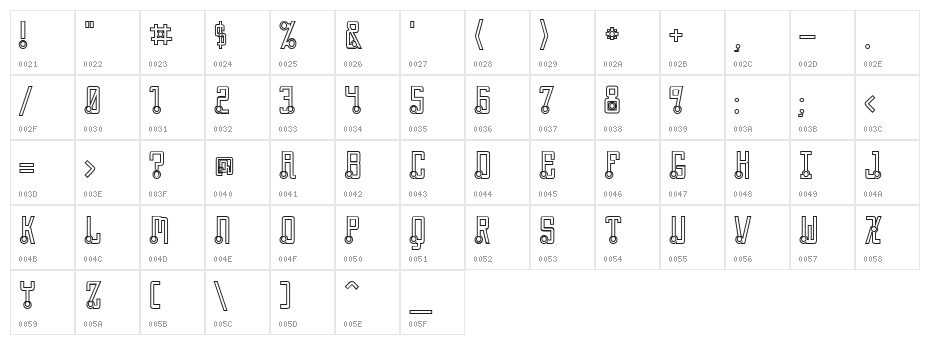
Quasidipitous Hollow Font
Quasidipitous Hollow Description
This font features a unique hollow design with a futuristic and geometric aesthetic. Each character is outlined with a consistent stroke width, creating a bold and striking appearance. The letters are composed of straight lines and circular elements, giving them a mechanical and digital feel. The uppercase and lowercase letters maintain a uniform style, while the numbers and special characters integrate seamlessly into the overall design. This font's distinct style makes it stand out, offering a modern and innovative look.
Proposed ProjectsIdeal for tech-themed projects, digital art, branding for innovative products, or any creative work requiring a modern and edgy typeface.